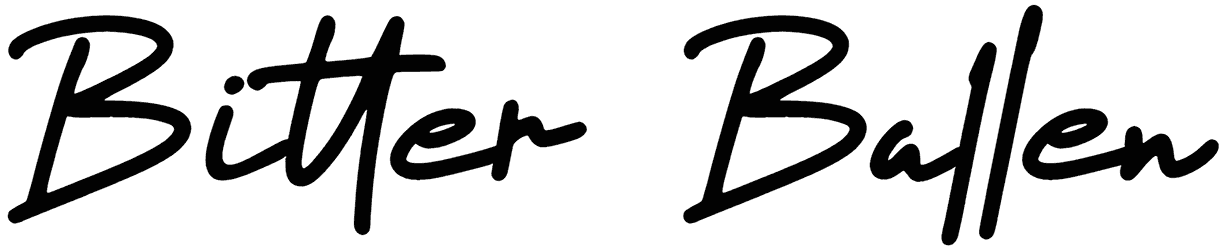
Bitter Ballen Font
Bitter Ballen is a magical script font that comes with curved and crooked characters, thus sharing a sense of playfulness, love, personalization, and vivacity with the audience. This handwritten font can bring a positive…
Bitter Ballen is a magical script font that comes with curved and crooked characters, thus sharing a sense of playfulness, love, personalization, and vivacity with the audience. This handwritten font can bring a positive atmosphere to your graphic content, so it is a brilliant idea to include it in book covers, Thanksgiving cards, flyers, diplomas, and business cards.